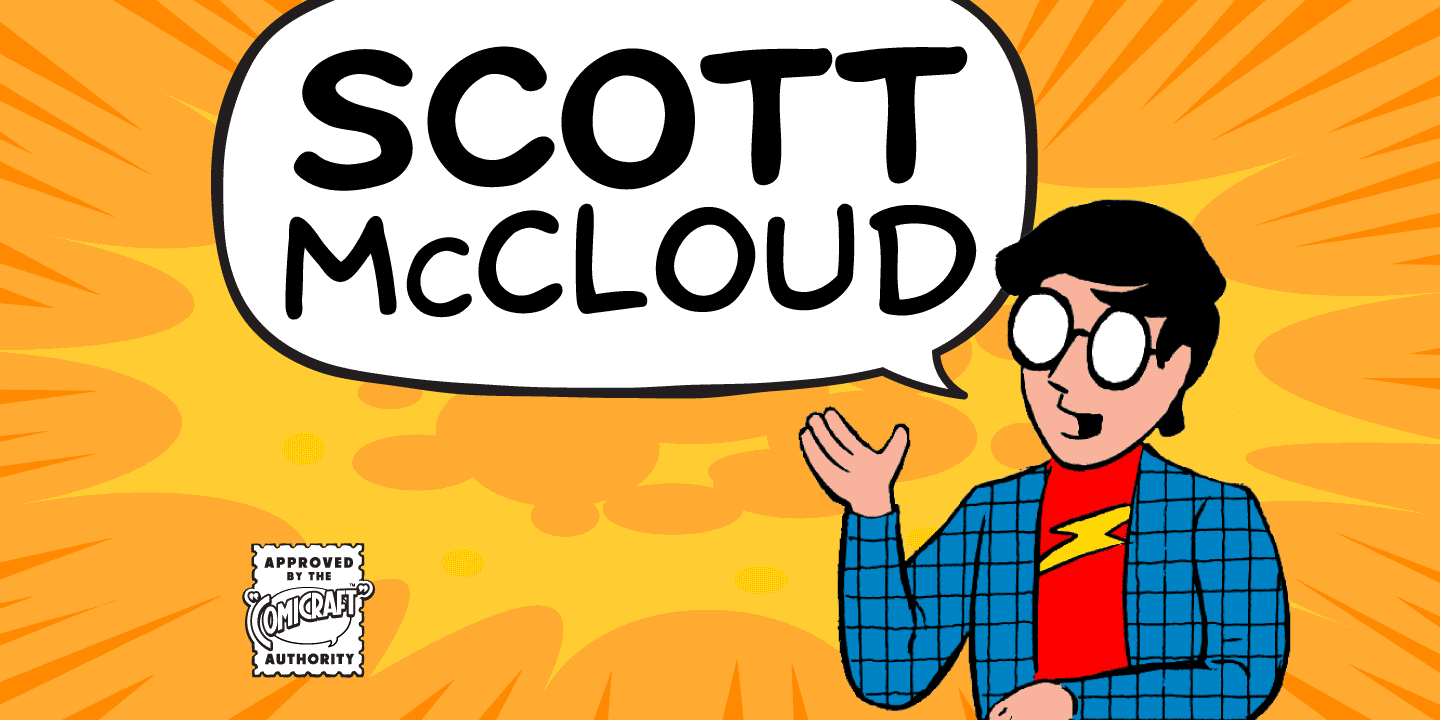
The Scott McCloud Font excels in various design applications including comic book publishing branding, graphic novel marketing communications, sequential art academy materials, comic theory educational signage, visual storytelling workshop promotions, comic strip creator identities, graphic narrative packaging, comic book store communications, sequential media festival materials, and distinguished comic projects that demand comic sophistication and narrative elegance.
What makes the Scott McCloud Font exciting is its thoughtful embodiment of comic artistry and visual narrative theory through letterforms that capture the essence of sequential storytelling and the intellectual depth of comic medium analysis. This typeface demonstrates exceptional narrative flow through carefully crafted characters that suggest the panel-to-panel progression of comic storytelling, the analytical precision of comic theory, and the artistic sophistication that makes sequential art so narratively powerful and visually compelling. The font's comic personality makes it perfect for publishing houses and educational institutions seeking to communicate comic authenticity, narrative expertise, and the kind of sequential sophistication that creates memorable comic experiences through typography that literally flows with narrative sequence.
The Scott McCloud Font family typically includes narrative weight variations that enhance the comic aesthetic, featuring sequential styling options and extended character sets optimized for publishing communications and educational applications. These family options often include comic-inspired alternates, narrative symbols, and sequential decorative elements that provide designers with comprehensive tools for creating authentically comic typography that celebrates visual storytelling while maintaining contemporary design appeal and academic credibility.
Publishing professionals and comic education organizations consistently select Scott McCloud Font Free Download for projects requiring typography that communicates comic authenticity and narrative sophistication. This typeface delivers exceptional performance in comic marketing, educational branding, and sequential communications where establishing expertise and creating narrative atmosphere is essential for comic community engagement. The font's sequential character makes it particularly effective for publishing and educational applications. Download Scott McCloud Font Free Download today to access this narratively sophisticated typeface that transforms comic communications with its sequential elegance and narrative sophistication, creating compelling storytelling experiences that honor the magnificent artistry of visual narrative while celebrating the analytical depth that defines authentic comic theory and sequential art excellence.